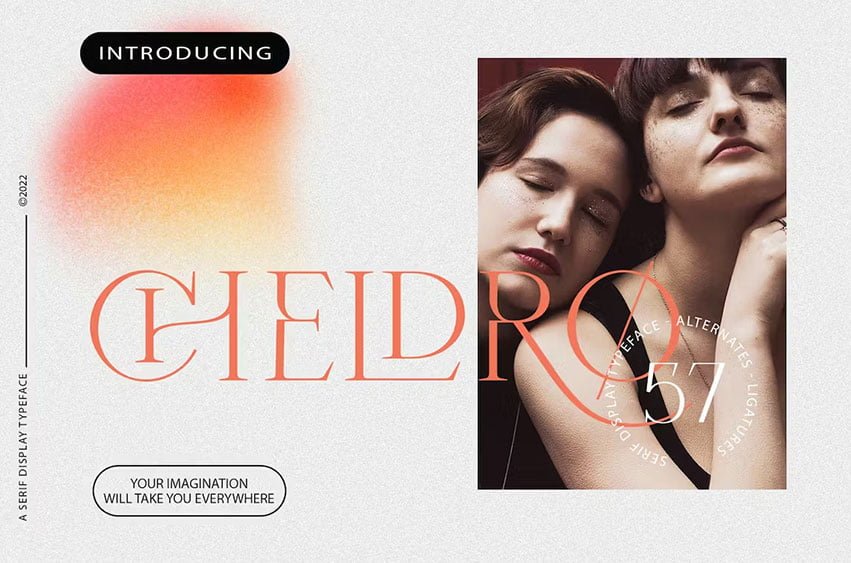
Cheldro Font is a serif typeface with ligatures also complete multilingual glyphs with the format OTF-TTF. Cheldro comes in Regular style, it will make this typeface can be used in all design projects and works perfectly for pairing with script typeface or handmade fonts, Headlines, Posters, Packaging, Postcards, Invitation, Wedding Sign, Sign Painting, Signboard, and much more.